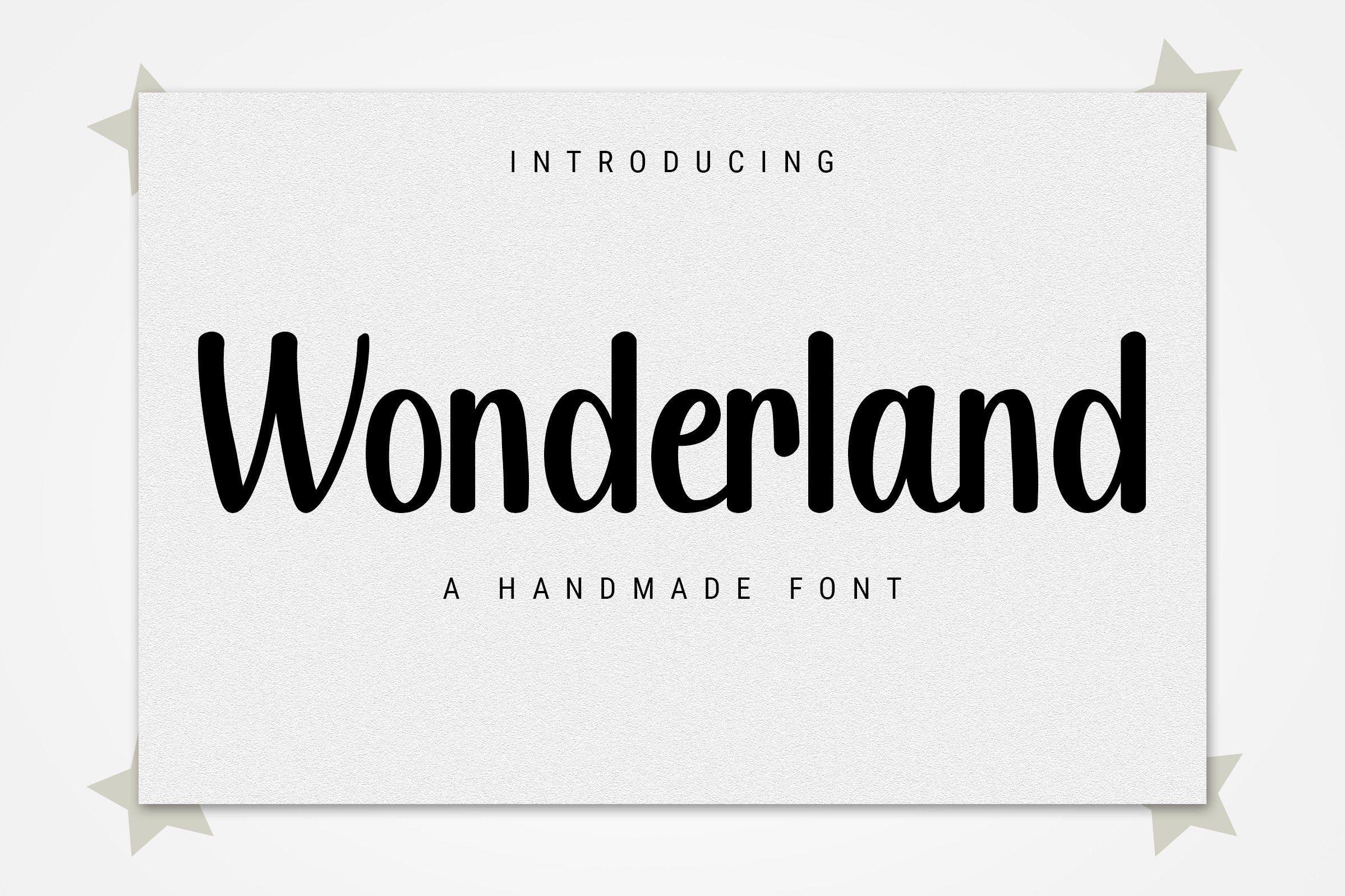
Wonderland - Handwritten font
Wonderland is a sweet and beautiful handwritten font. Featuring characters that dance along the baseline, this font will add a cozy accent to any design project you wish to create. Whether you’re using it for crafts, digital design, presentations, or making greeting cards, this font has the potential to become your favorite go-to font, no matter the occasion. Font includes all lowercase and uppercase characters, numbers, alternate, punctuation ,an array of standard ligatures and a selection of international characters as well. This font is PUA encoded which means you can access all of the glyphs and Alternates with ease! (please type the preview to see if I have what you need!)